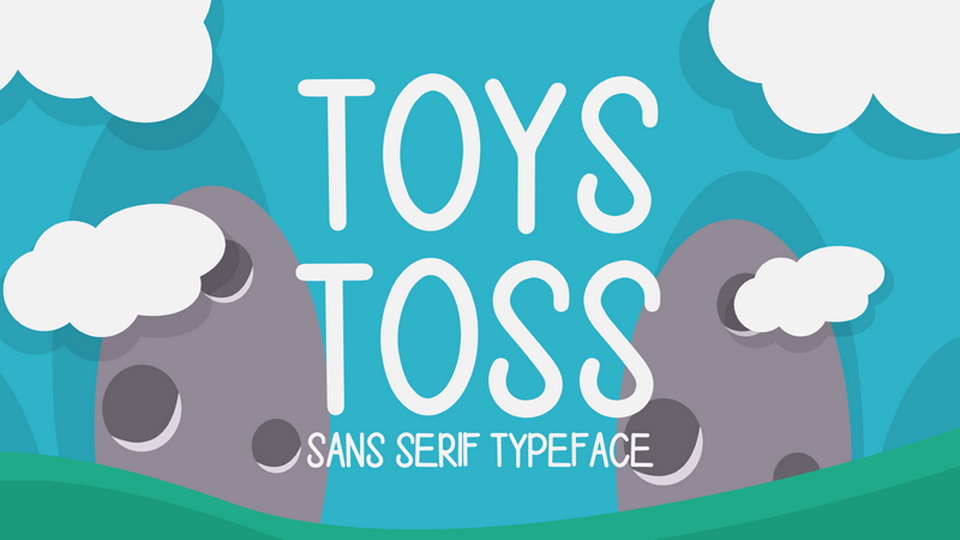
Download Toys Toss font, a simple and casual handwritten typeface. With its natural look Toys Toss font is perfect for notes, quotes, cards, branding, social media Instagram posts, and many more.